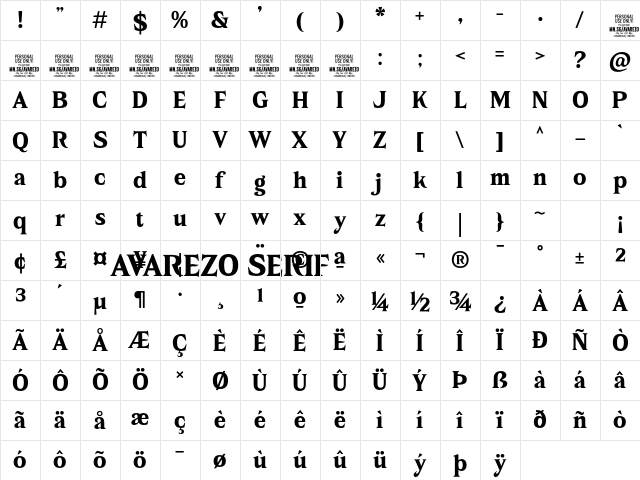
Avarezo Serif PERSONAL USE Regular Free Font
Avarezo Serif PERSONAL USE Regular
Foundry: Mans Greback AB
Designer: Mans Greback
Design Context for Avarezo Serif PERSONAL USE
Avarezo Serif PERSONAL USE carries the refined structure of traditional serif typography, with bracketed terminals and considered proportions that communicate credibility and craft.